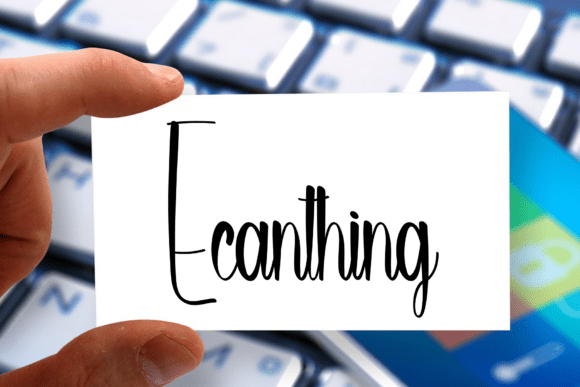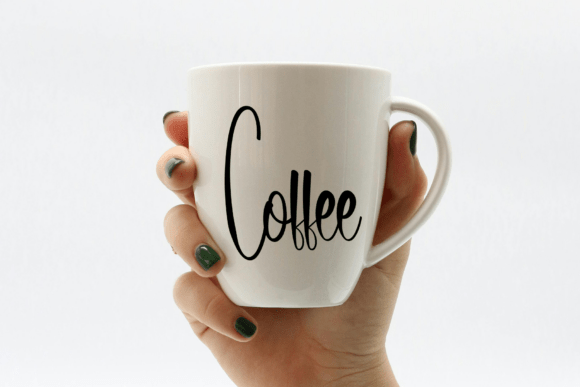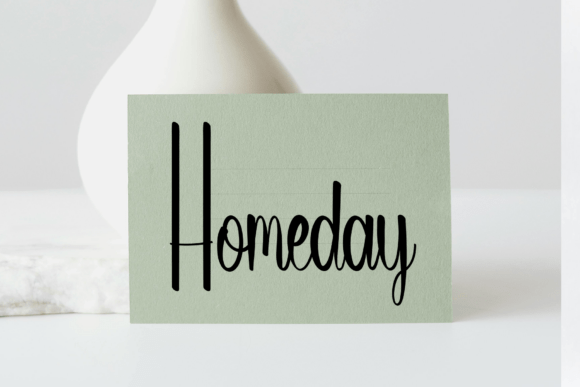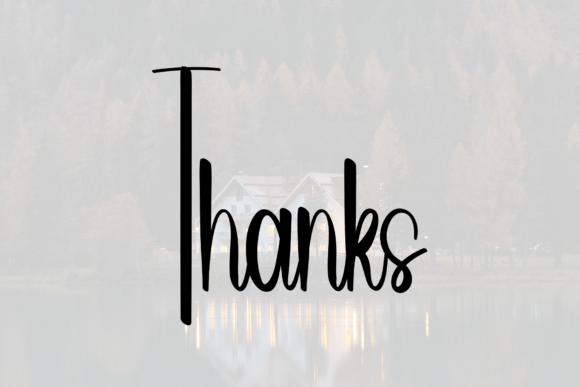
Introducing Delightful Font: The Perfect Blend of Elegance and Casual Charm
Are you on the hunt for a font that exudes a sense of luxury and elegance, yet still maintains a casual and sporty vibe? Look no further than Delightful Font, a beautiful handwritten font that is sure to elevate your designs to the next level. With its unique marker-drawn aesthetic, Delightful Font is perfect for a wide range of creative projects, from branding and logos to wedding supplies, greeting cards, and more.
The Characteristics of Delightful Font
So, what sets Delightful Font apart from other fonts on the market? For starters, its handwritten nature gives it a personal and approachable feel that is hard to replicate with more traditional fonts. The marker-drawn style also adds a touch of whimsy and playfulness, making it perfect for designs that need a bit of personality. At the same time, Delightful Font is surprisingly versatile, and can be used in a wide range of contexts to convey a sense of sophistication and refinement.
Uses for Delightful Font
So, what can you use Delightful Font for? The possibilities are endless, but here are a few ideas to get you started:
- Branding and Logos: Delightful Font is a great choice for logos and branding materials, as it is instantly recognizable and can help to set your brand apart from the competition.
- Wedding Supplies: From invitations to thank-you cards, Delightful Font is a beautiful choice for wedding stationery and other supplies.
- Greeting Cards: Whether you’re creating birthday cards, holiday cards, or just a simple thank-you note, Delightful Font is a great choice.
- Fashion and Lookbooks: Delightful Font is also a great choice for fashion designers and retailers, as it can add a touch of elegance and sophistication to lookbooks, catalogs, and other marketing materials.
- Marketing Promotions: From flyers to brochures, Delightful Font is a great choice for any marketing materials that need a bit of personality and flair.
Why Choose Delightful Font?
So, why should you choose Delightful Font for your next design project? Here are just a few reasons:
- Unique and Eye-Catching: Delightful Font is a one-of-a-kind font that is sure to grab attention and make your designs stand out.
- Versatile: Delightful Font can be used in a wide range of contexts, from formal to informal, and can help to add a touch of personality to any design.
- Elegant yet Casual: Delightful Font strikes the perfect balance between elegance and casual charm, making it perfect for designs that need to convey a sense of sophistication without being too formal.
Tips for Using Delightful Font
Here are a few tips for getting the most out of Delightful Font:
- Experiment with Different Sizes: Delightful Font looks great in a wide range of sizes, from small and delicate to large and bold.
- Play with Color: Delightful Font can be used with a wide range of colors, from bright and bold to soft and pastel.
- Combine with Other Fonts: Delightful Font pairs well with a wide range of other fonts, so don’t be afraid to experiment with different combinations.
In conclusion, Delightful Font is a beautiful and versatile font that is perfect for designers and crafters who want to add a touch of elegance and sophistication to their designs. With its unique marker-drawn aesthetic and relaxed, sporty feel, Delightful Font is sure to become a go-to font for a wide range of creative projects. So why wait? Download Delightful Font today and start creating stunning designs that are sure to impress!